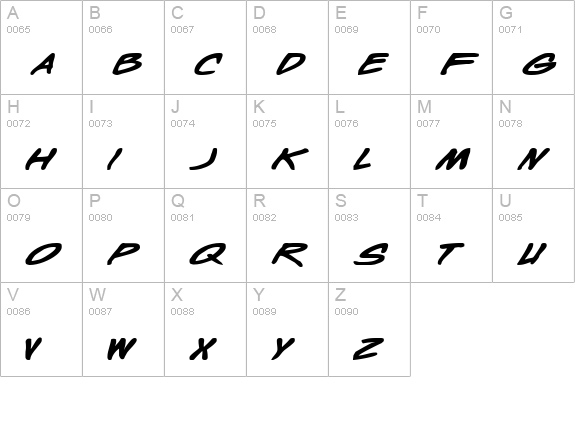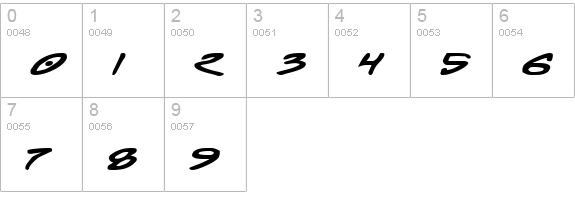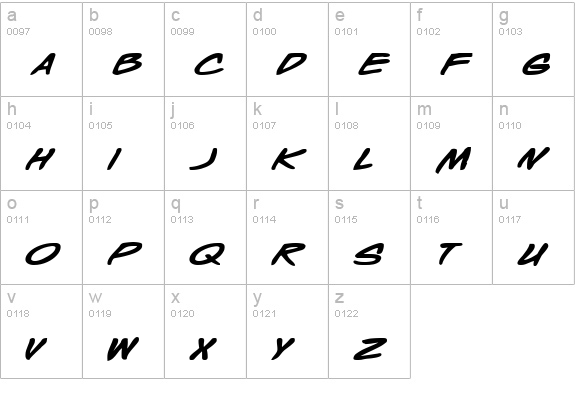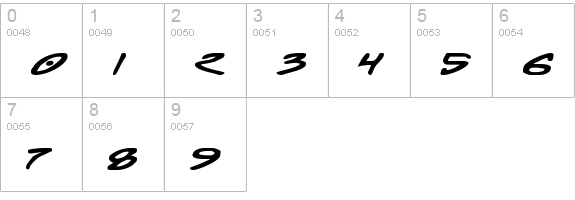
Wyld Stallyns Bold Extended Font Details
Wyld Stallyns Bold Extended is a strong, high-contrast, extended-width variant in the Wyld typeface family \xE2\x80\x94 well suited to headlines, attention-grabbing titles, and strong calls-to-action.